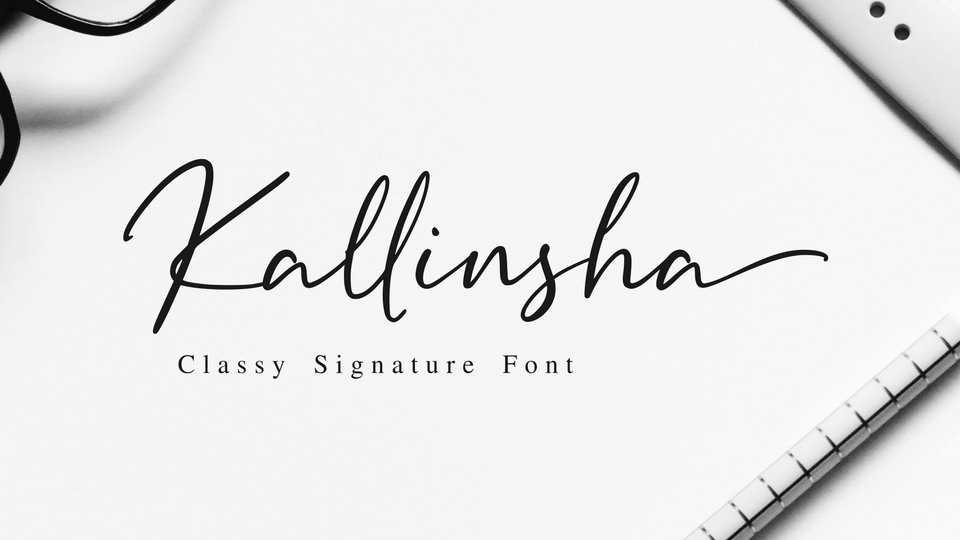
Download Kallinsha font, a classy signature typeface. Kallinsha has a natural and modern handwritten style for any purpose such as logos & branding, wedding designs, media and more.
Designer: Sibelumpagi Studio